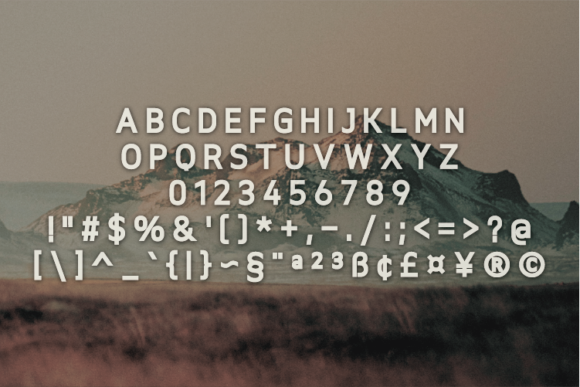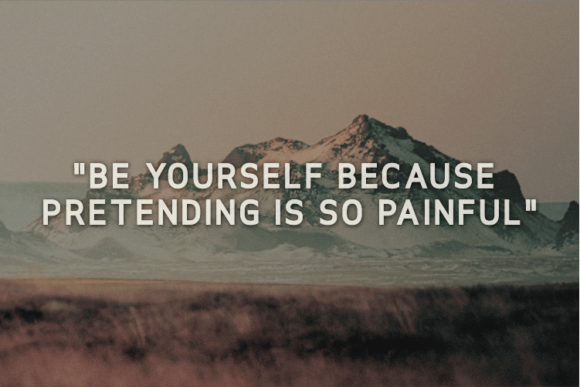
Introduction to Ciprone Font
Ciprone is a simple and thick lettered sans serif font.
It works beautifully for logos, branding, and web headings Add it confidently to your projects, and you wonโ€™t be disappointed.